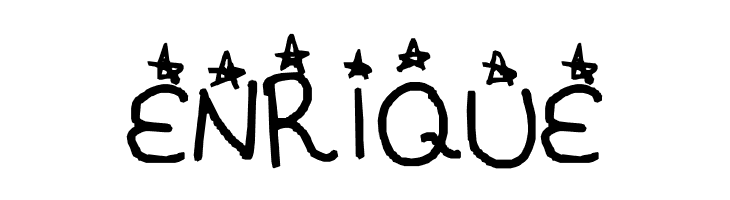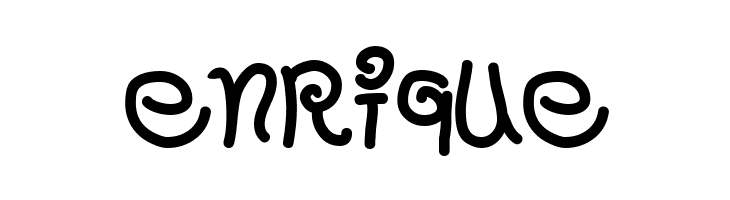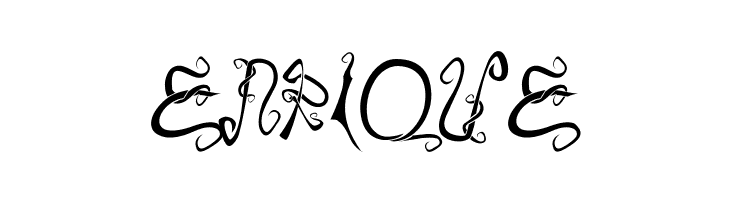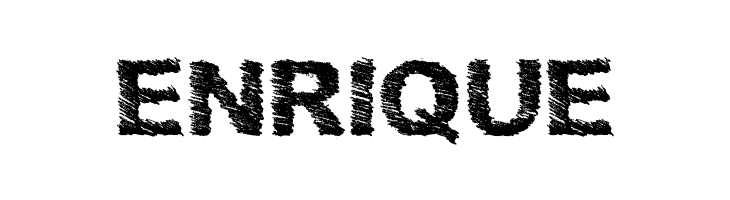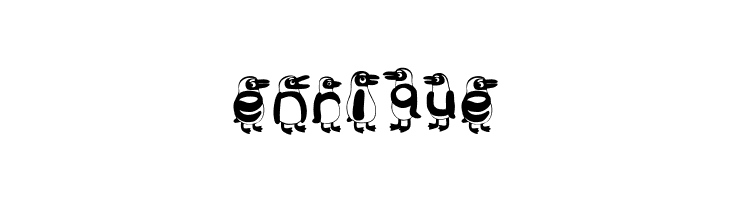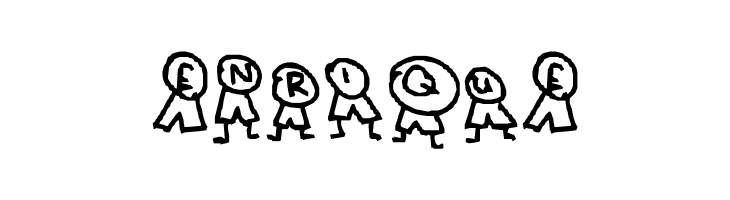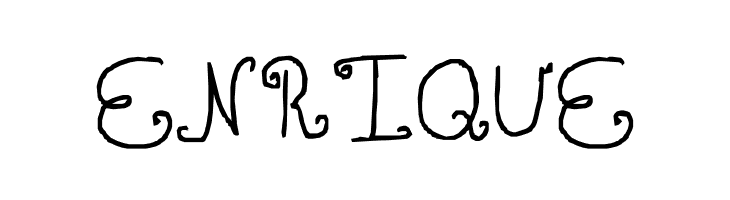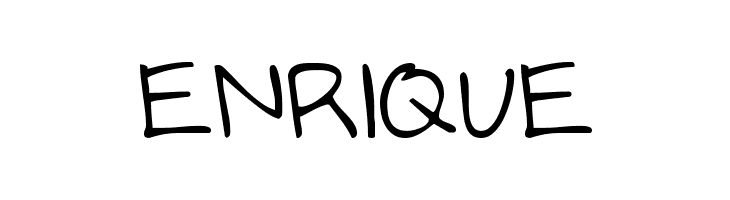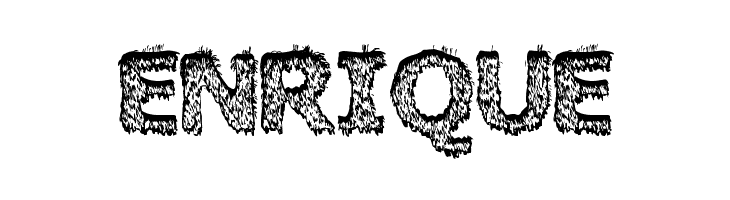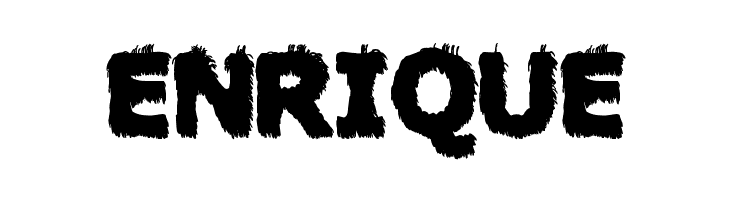
( Fonts by Grafito Design - dibujosenlinea.ideasintegrales.net )
A playful, curly font with bold, rounded characters full of whimsy and movement.
( Fonts by Steve Cloutier - www.cloutierfontes.ca )
A bold, sketch-style font with textured, hand-drawn strokes.
( Fonts by www.kimberlygeswein.com - Kimberly Geswein )
A playful, casual handwritten font with smooth, rounded edges and a whimsical touch.
( Fonts by Cumberland Fontworks - http://www222.pair.com/sjohn/fonts.htm - S. John Ross )
A bold, playful font with a hand-drawn, dynamic style.
( Fonts by Grafito Design - dibujosenlinea.ideasintegrales.net )
A whimsical, cartoon-like font with unique character designs for each letter.
( Fonts by www.junkohanhero.com )
A playful, hand-drawn font with a doodle-like, double-lined style.
( Fonts by www.twopeasinabucket.com )
A playful, vintage block-style font with bold, chunky letterforms.
( Fonts by www.twopeasinabucket.com )
A playful block-style font ideal for creative and youthful projects.
( Fonts by www.kimberlygeswein.com - Kimberly Geswein )
A playful, dotted font perfect for creative and fun projects.
A whimsical font featuring playful animal illustrations for each character.
A whimsical font with characters as cartoonish food items.
A playful font with bold letters and whimsical gnome illustrations.
( Fonts by Loraine Wauer Ferus www.billybear4kids.com )
A whimsical font with characters inside cartoon angel figures, ideal for playful designs.
( Fonts by Loraine Wauer Ferus www.billybear4kids.com )
A playful, bold font with rounded, bouncy characters and whimsical elements.
( Fonts by Loraine Wauer Ferus www.billybear4kids.com )
A whimsical font with characters inside bunny designs, perfect for festive projects.
( Fonts by Mans Greback - www.mawns.com )
A bold, hand-drawn font with a playful and energetic style.
( Font by kingthingsfonts.co.uk )
A playful, sheep-themed decorative font with characters embedded in cartoon sheep illustrations.